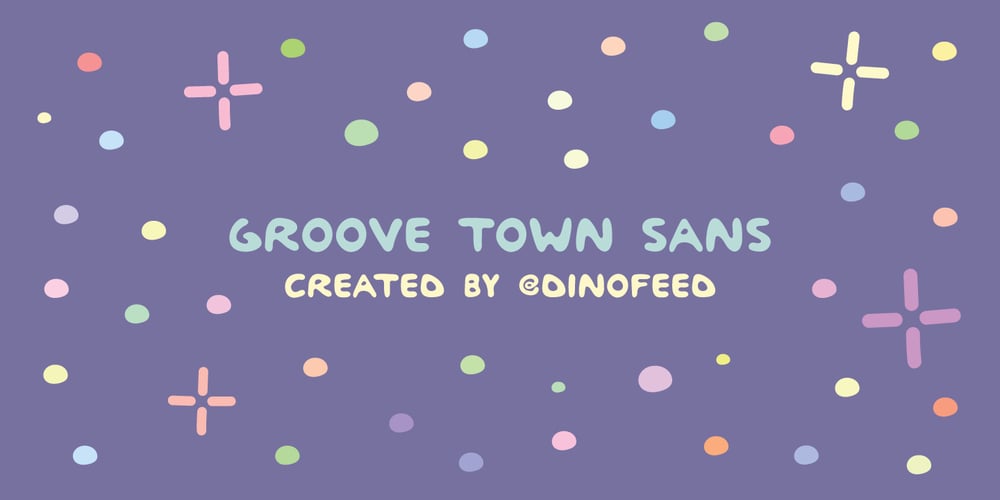
Groove Town Sans Font Family was designed by Robert Persky and published by Dino Feed. Groove Town Sans contains 1 styles and family package options. Fonts should be living, breathing organisms. Dino Feed wanted to see a font with character, so we created Groove Town Sans. This hand-drawn font has 122 glyphs and is made for Latin-based languages. Play around with the font and make it original; we like to keep everything lowercase. See more @dinofeed on Instagram or at dinofeed.com.